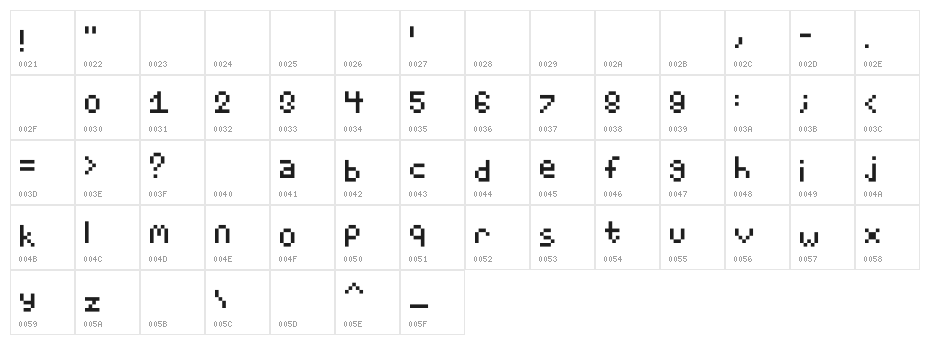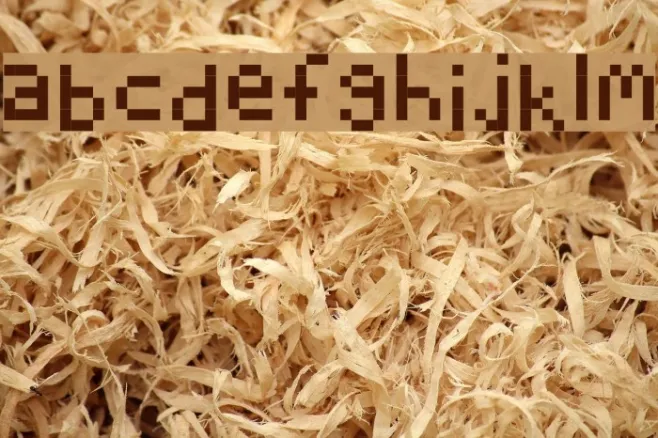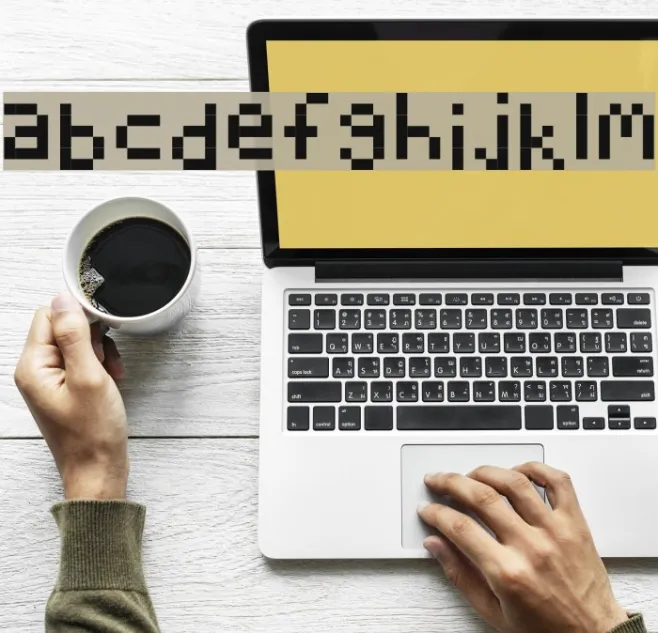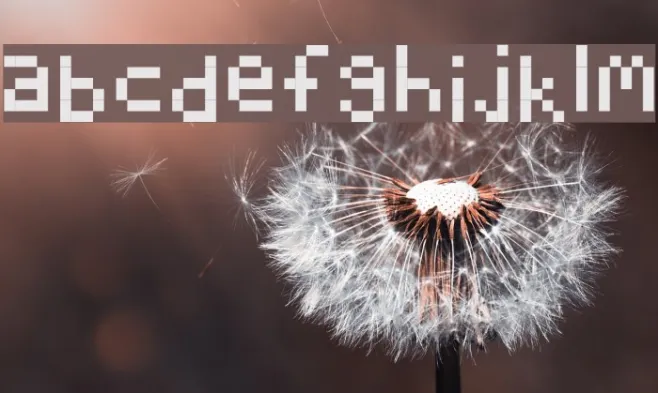
H5Bitjun Font
H5Bitjun Description
This font features a pixelated, blocky design reminiscent of early digital displays and retro video games. Each character is constructed with a grid-like appearance, giving it a distinctly digital and nostalgic feel. The uniformity in the pixel size across all characters creates a cohesive look, while the simplicity of the design ensures readability even at smaller sizes. The font includes both uppercase and lowercase letters, numerals, and a selection of special characters, all adhering to the same pixelated style. Its straightforward and geometric nature makes it ideal for projects that aim to evoke a sense of nostalgia or a retro digital aesthetic.
| Use Case | Logos, Headlines, Digital Art |
| Proposed Projects | Ideal for retro video game graphics, digital art projects, and nostalgic branding. |